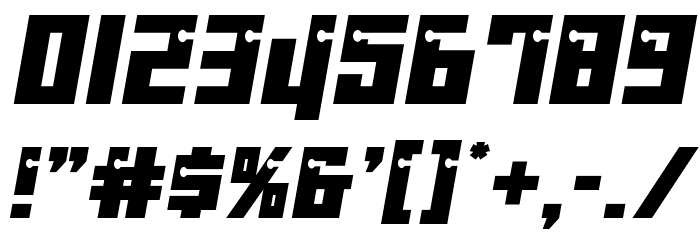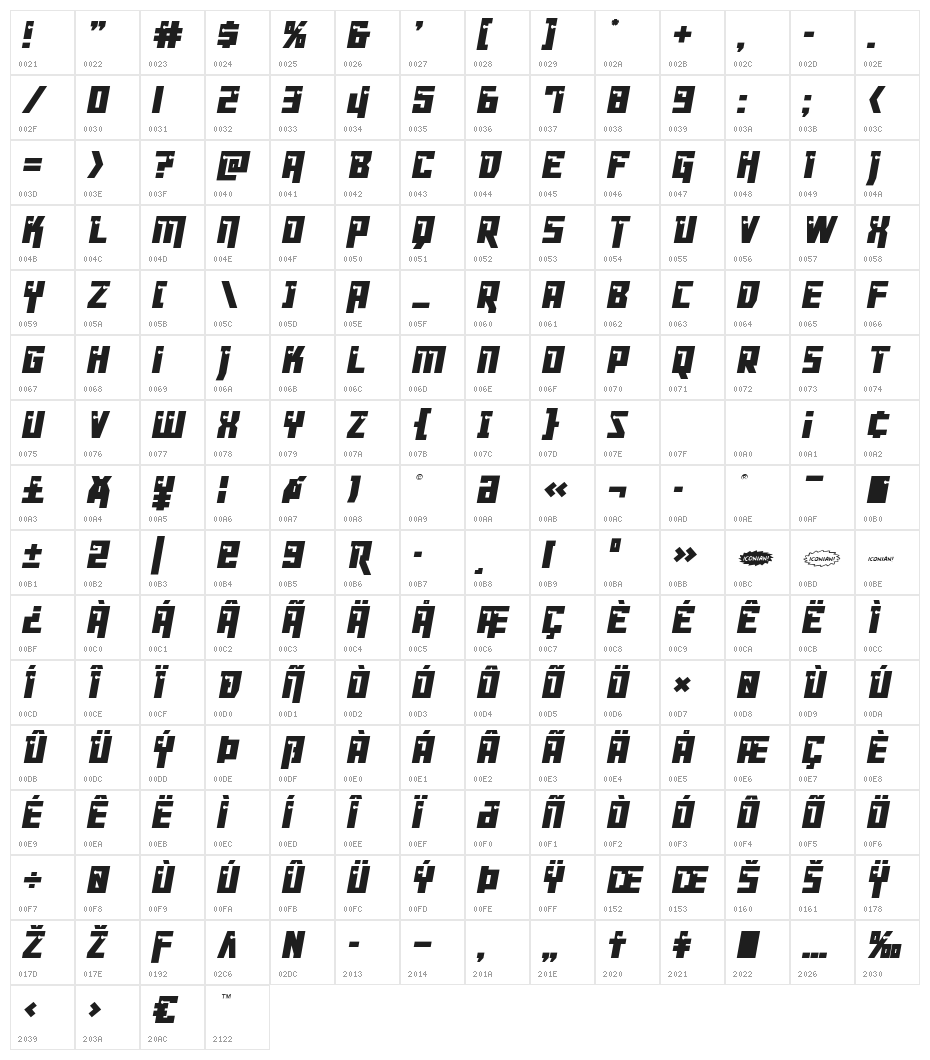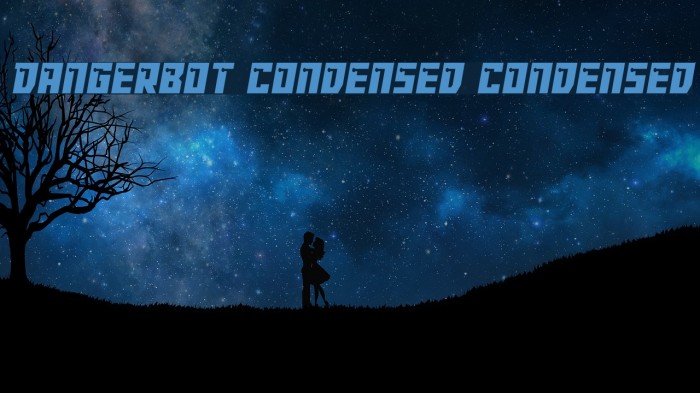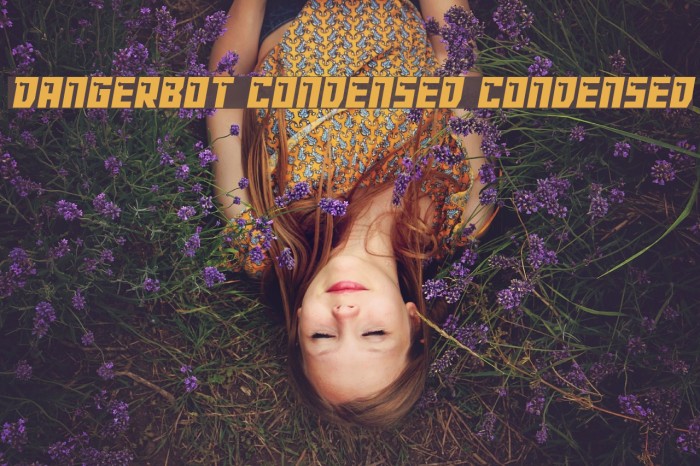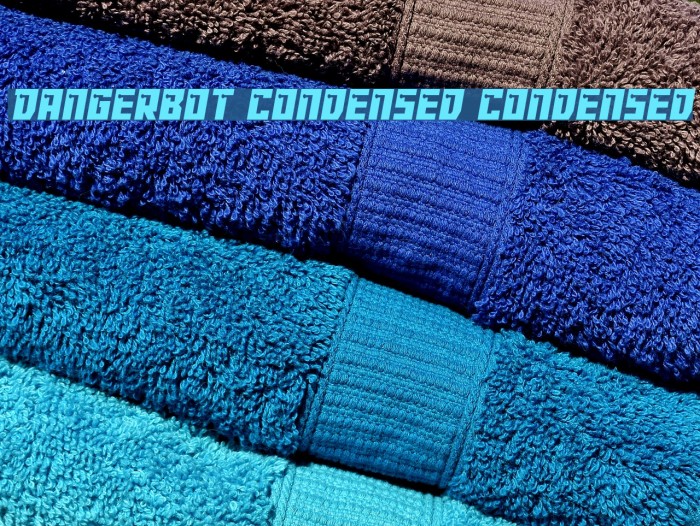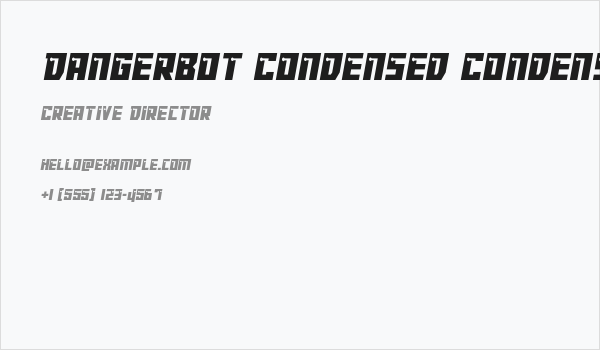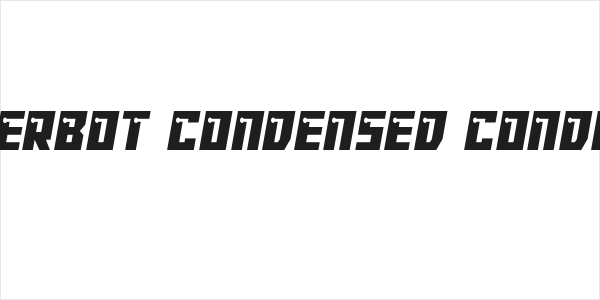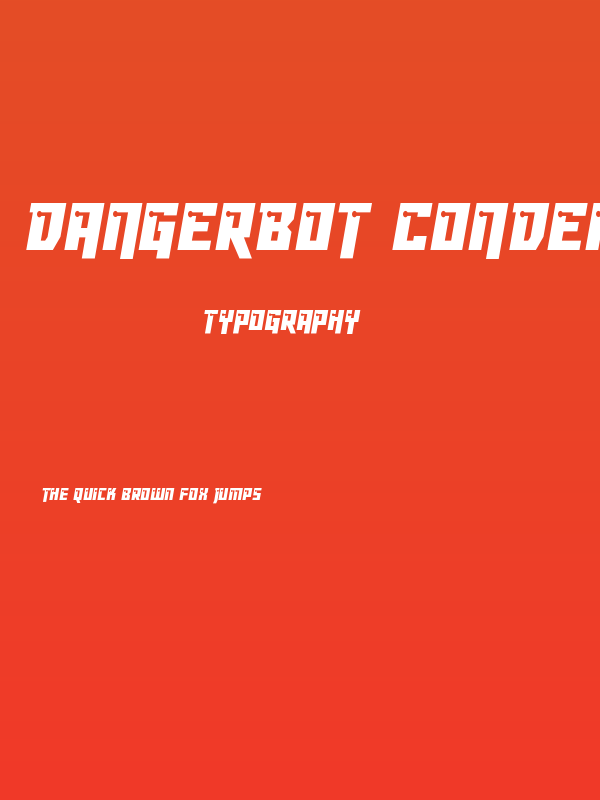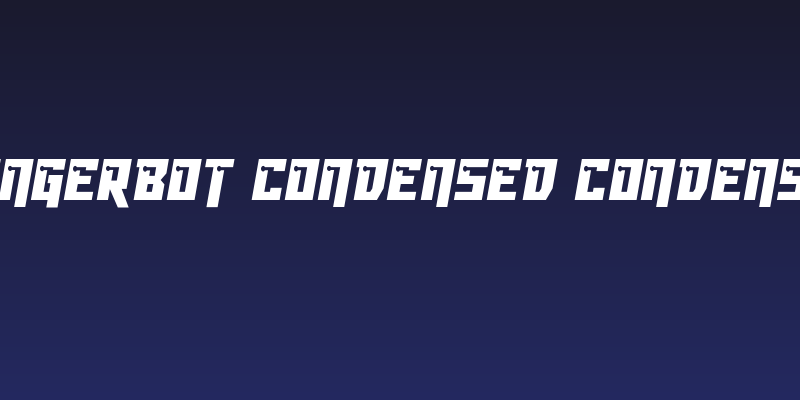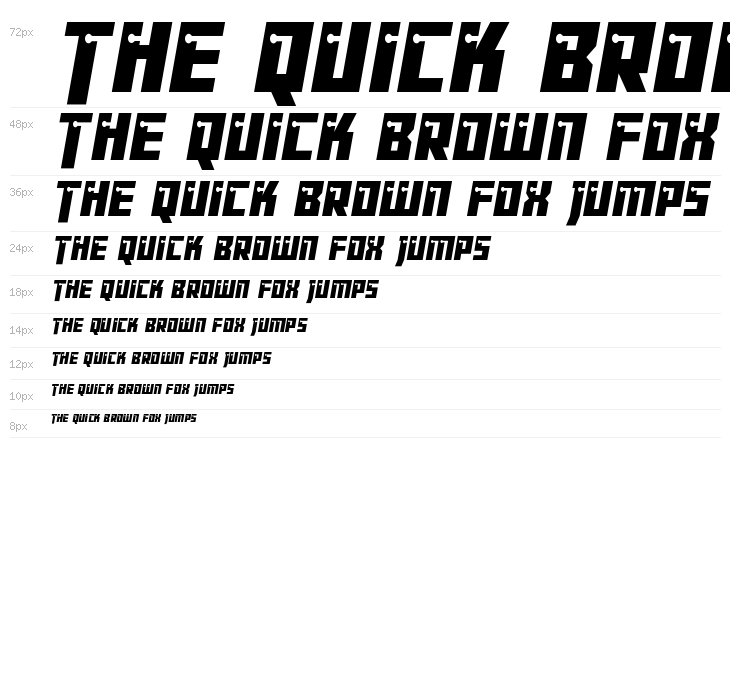
Dangerbot Condensed Font
Dangerbot Condensed Description
This font features a bold and futuristic design with sharp, angular edges and a condensed structure. The characters are tightly spaced, creating a compact and impactful appearance. The uppercase and lowercase letters share a similar geometric style, enhancing the uniformity of the typeface. The numbers and special characters maintain the same bold and angular characteristics, ensuring consistency across all glyphs. This font's unique style makes it suitable for projects that require a modern and edgy aesthetic.
| Proposed Projects | Ideal for sci-fi themed designs, video game titles, tech branding, and futuristic posters. |